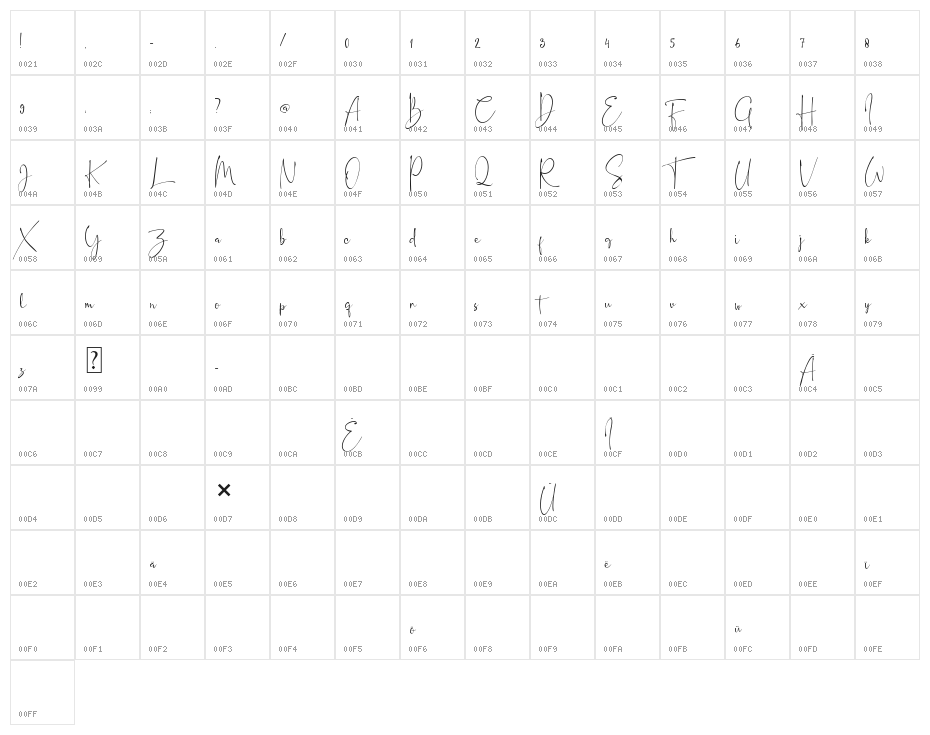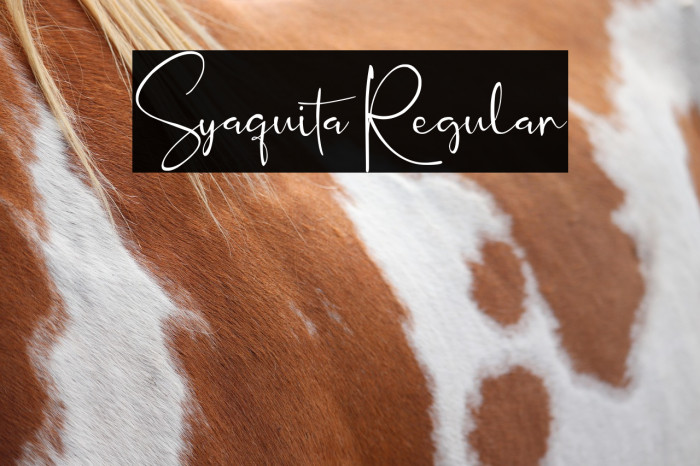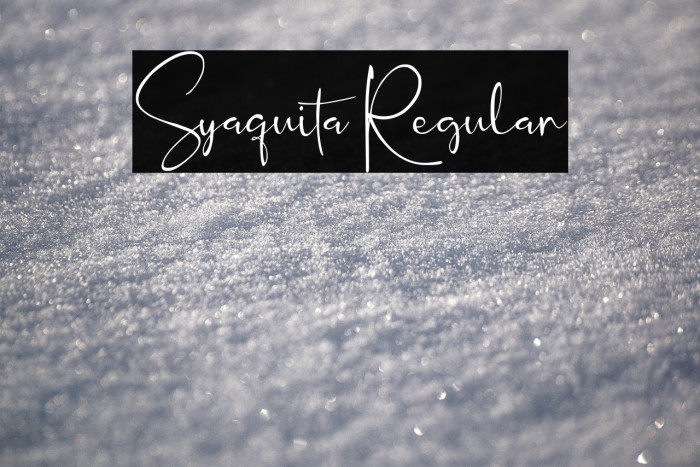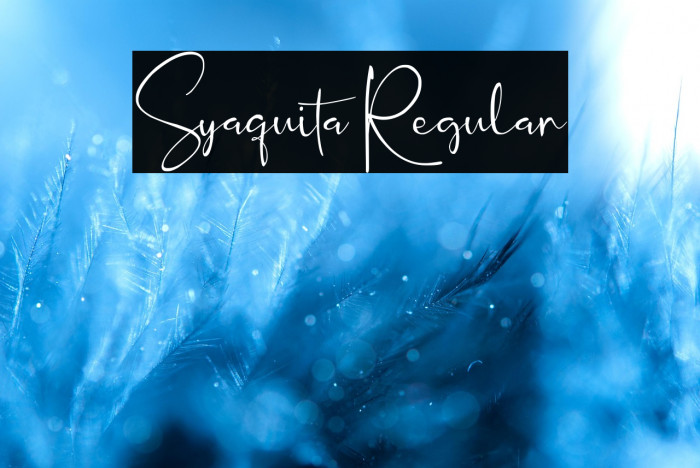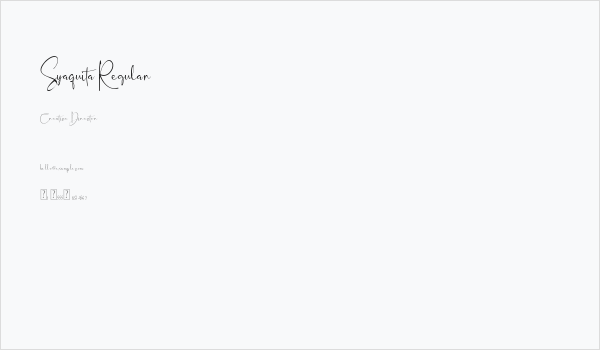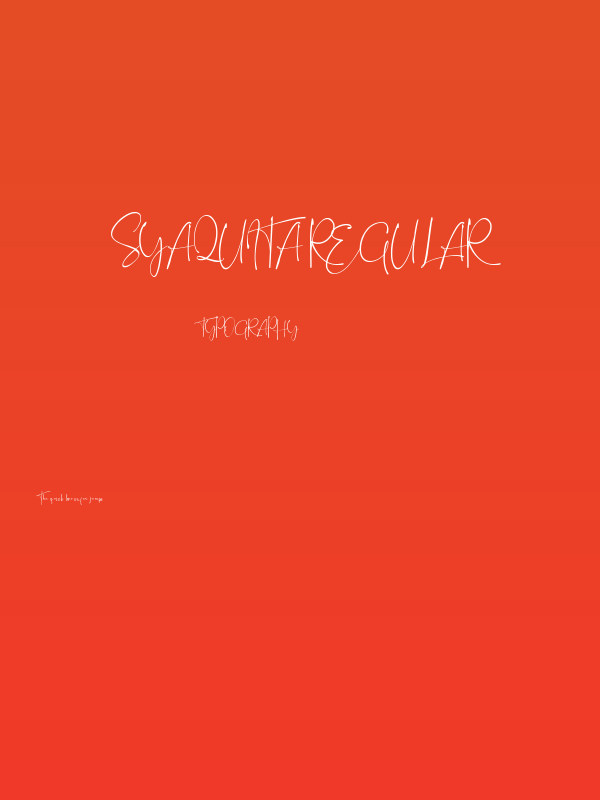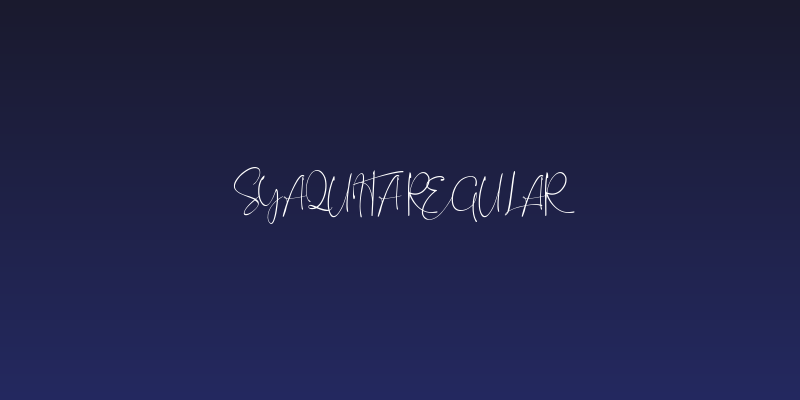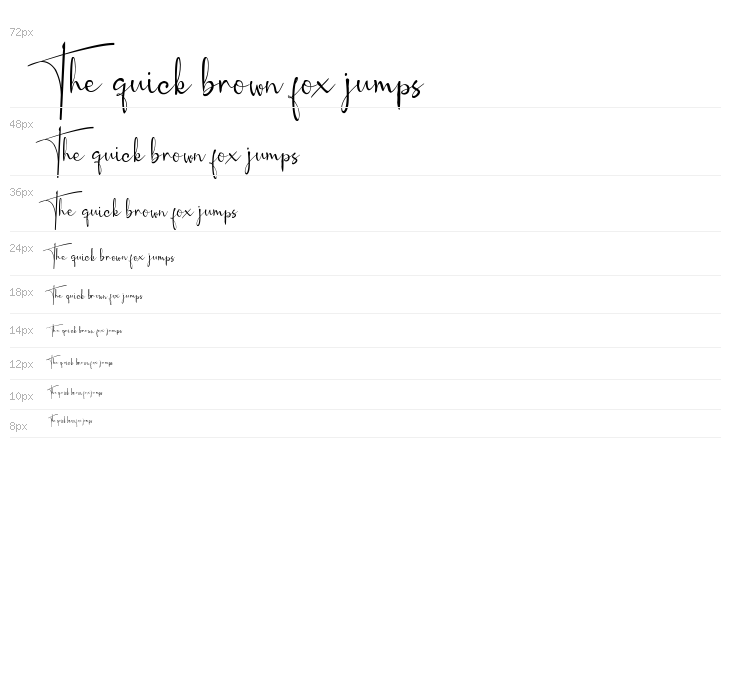
Syaquita Regular Font
Syaquita Regular Description
This font features an elegant and flowing script style, characterized by its thin, elongated strokes and graceful curves. The uppercase letters are particularly distinctive, with a whimsical and artistic flair that gives them a unique personality. The lowercase letters maintain a consistent flow, enhancing readability while retaining a sophisticated appearance. The numerals and special characters complement the overall style, adding versatility to the font. Its delicate lines and artistic design make it suitable for creative and decorative purposes.